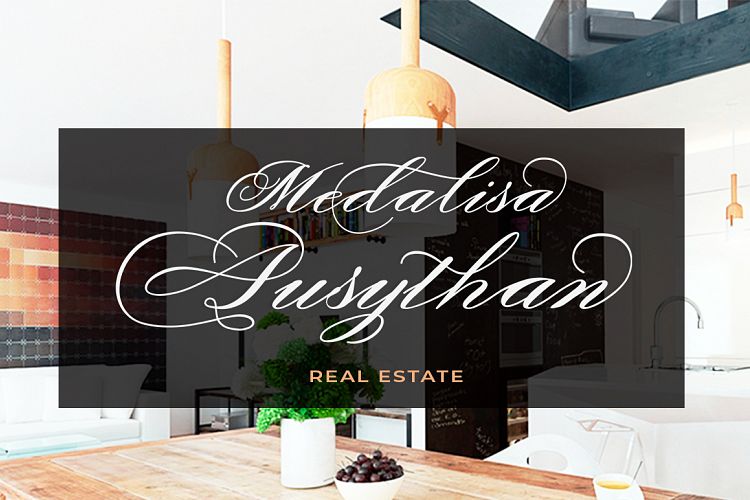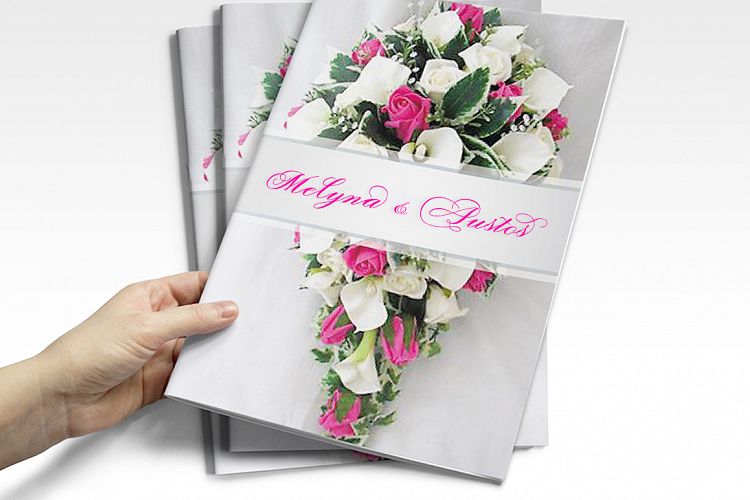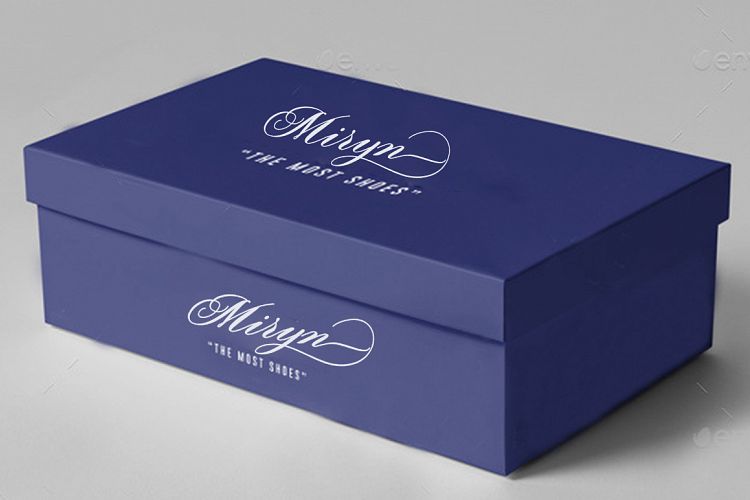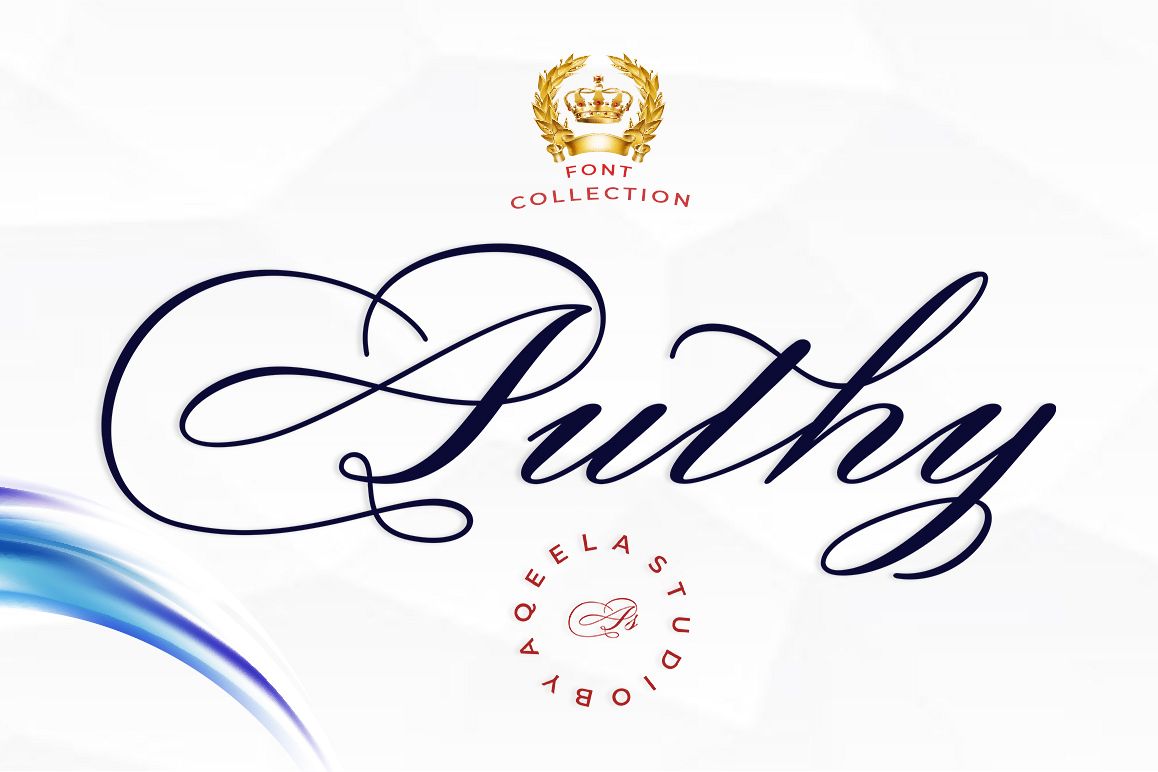
Authy Script Font
Authy is a calligraphy script font that comes with lovely alternates character. a mixture of from copperplate calligraphy with handlettering style. Designed to convey style elegance. Glittering Script is attractive like a smooth, clean, feminine, sensual, glamorous, simple and highly legible typeface. Its classic style is perfect to be applied in any type of formal pieces such invitations, labels, menus, Logos, fashion, make up, stationery, letterpress, romantic novels, magazines, books, greeting / wedding cards, packaging, labels.
Authy features glyphs and  alternative characters. including multiple language support. With OpenType features with stylistic alternates, ligatures and  characters, that allows you to mix and match pairs of letters to fit your design, and also a touch of makes this font look elegant